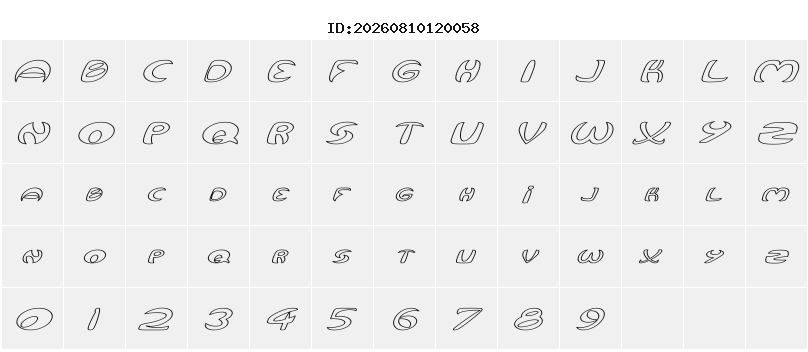
Qurve Hollow Wide Preview
• Font Name: Qurve Hollow Wide
• Font ID: Qurve Hollow Wide Italic
• Full Font Name: Qurve Hollow Wide Italic
• PostScript Name: QurveHollowWideItalic
About Qurve Hollow Wide.ttf
Qurve Hollow Wide.ttf is a modern, elegant sans-serif font designed for ultimate readability and visual harmony. Perfect for branding, headlines, web design, and print materials.